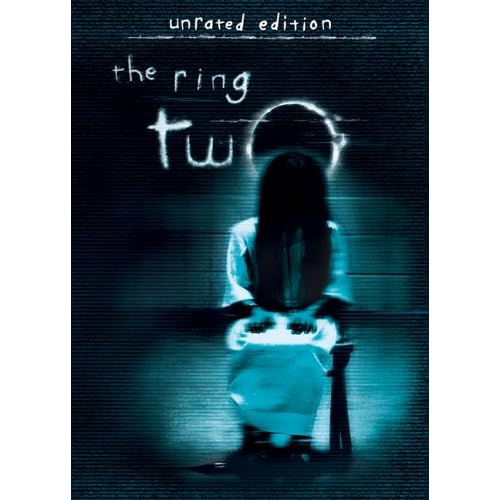
"The Ring" Font
This is driving me crazy. I’ve posted elsewhere with little luck, so I’m going to post this here in the hopes that someone will recognize this font. I’m fairly sure it’s commercially available - it’s been used in a number of sources extensively. Hopefully this font will ring a bell here — you guys are experts, I’m trusting you! :D
The font I’m looking for is the font used the logo for “The Ring.” A possibly modified version was used in the cover for the Thai movie “Shutter.” The examples that follow are all taken from the HBO Making-Of special on the DVD for “The Ring Two.” (The font was also used as the font for captions in the last few episodes of “Scariest Places on Earth” which aired last Halloween; unfortunately as of now I don’t have any examples of those.)
Here are the examples I have so far ... they should be enough to at least form a rough outline of the font in question.
“Shutter” cover:
“The Ring Two” examples:
I’m not sure about that one, but you could use FF Providence Sans as an alternative.
FF Providence Sans is much too pleasant looking to compare it to those samples. This might be a hard one because most people wouldn’t download anything that horrible looking even if it was free.
That might be true, though Providence Sans could be perfect for horror movie titles if used properly. For “scarier” handwritten fonts, consider something from House Industries.
Providence Sans is actually a lovely font. I love the g.
> I’m fairly sure it’s commercially available -
The place I’ve seen fonts like this is at deviantart.com
It’s not so much NEEDING the font as it is wanting to know what it is. Ever since I first saw the logo for “The Ring” I’ve been obsessed by it — kind of fitting, when you think about the content of the film. It’s like a childish scrawl, but there’s something unnerving about it. The font in the pictures is undeniably ugly - but it’s also sort of cool. Maybe I’m alone there. I don’t know. Fonts can’t all be perfectly proportioned.
The reason I think it’s commercially available is because on the show “Scariest Places on Earth” (I’m a bit obsessive over that show) they used to use this creepy handwritten font. When I posted a font request over at the WhatTheFont forum, they came back with “Herrick’s Hand” (see here: http://www.kandjsupplies.com/text_fonts_handwriting/herricks_hand.html).
I thought the SPOE font was custom-made, but then lo and behold: there’s the font, commercially available. (Just for the record, I’ve checked all the fonts at the kandjsupplies.com place...I’ve found a few results that come vaguely close, but nothing perfect.) Another example: I swore that the font “The Sixth Sense” used was custom made. Then - there it was, Las Bonitas. Most fonts used in movies are available, even if they are slightly altered. In the examples above, if you compare the letters ot those used in the logo for “The Ring,” you’ll notice definite differences — but also definite similarities.
This font, I can’t tell if it’s all lowercase or if they only use lowercase letters to achieve the “Ring” effect.
Another similar logo was used in the recent movie “Reincarnation” (an After Dark 8 Days of Horror or whatever film festival movie), seen here: http://www.impawards.com/2006/reincarnation.html. I realize that this poster uses handwriting - the letters don’t match up, so it can’t be a font, but it gives you a sort of idea about what I’m looking for. Argh.
@fontplayer: I snooped around deviantart...by snooping I mean casually glancing ... and I couldn’t find ANY fonts, period. Is there like a section for them? There’s a possibility that some user-made font made it to the big screen — the “Harry Potter” spinoff font “Lumos” that was designed to emulate Ablefont made its way onto the Harry Potter DVD menus, so you never know.
Another thing. Look at the Unrated Edition version of “The Ring Two” DVD. The “Unrated Version” is written in a similar “Ring”y font. http://g-ec2.images-amazon.com/images/I/51KBVJRVDVL._SS500_.jpg. So many examples...so few answers.
And there is no good way to search for fonts at deviantart. They are usually posted on members pages as something they did on a lark. I see them when I go through Dr. Luc’s latest fonts pages. Here is one I just found that way (I hope the link works)